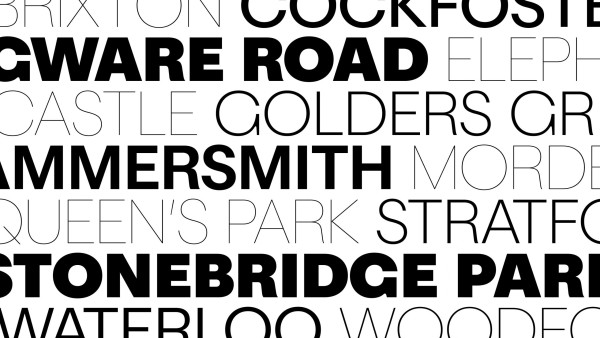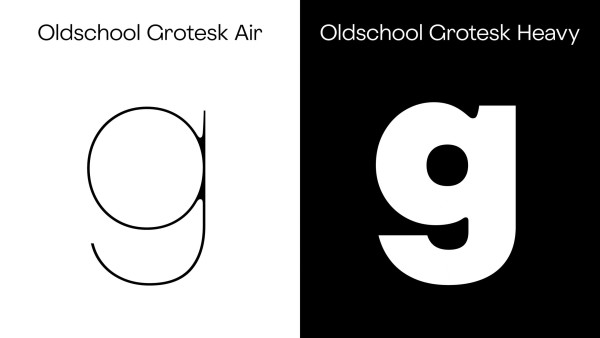
Oldschool Grotesk Font
Oldschool Grotesk Font, is a look behind the façade of Victorian sans serif inscriptions. Inheriting some of the distinct aspects of early British Grotesques and lettering from that period, it peels away the top layers of apparent quirkiness and eccentric detail. A reflection of Modernist roots through the lens of modern typography.
Oldschool Grotesk offers four distinct widths. The wider styles follow classical proportions, underpinning the early geometric heritage. Compressed, Condensed, and Compact are more regularized yet not mechanized. Smooth transitions between stems and arches form a steady rhythm and contribute a sharp, sparkling texture to the lighter weights. In darker weights, the small curves mimic the soft puffiness often observed in wood-type printing. A warm analog buzz for a cold digital world.
Since its initial release the design has been revised and extended into a comprehensive system of 40 individual styles. The Variable font combines all in a single file, allowing you to fine-tune width and weight and select the right style from an infinite spectrum.